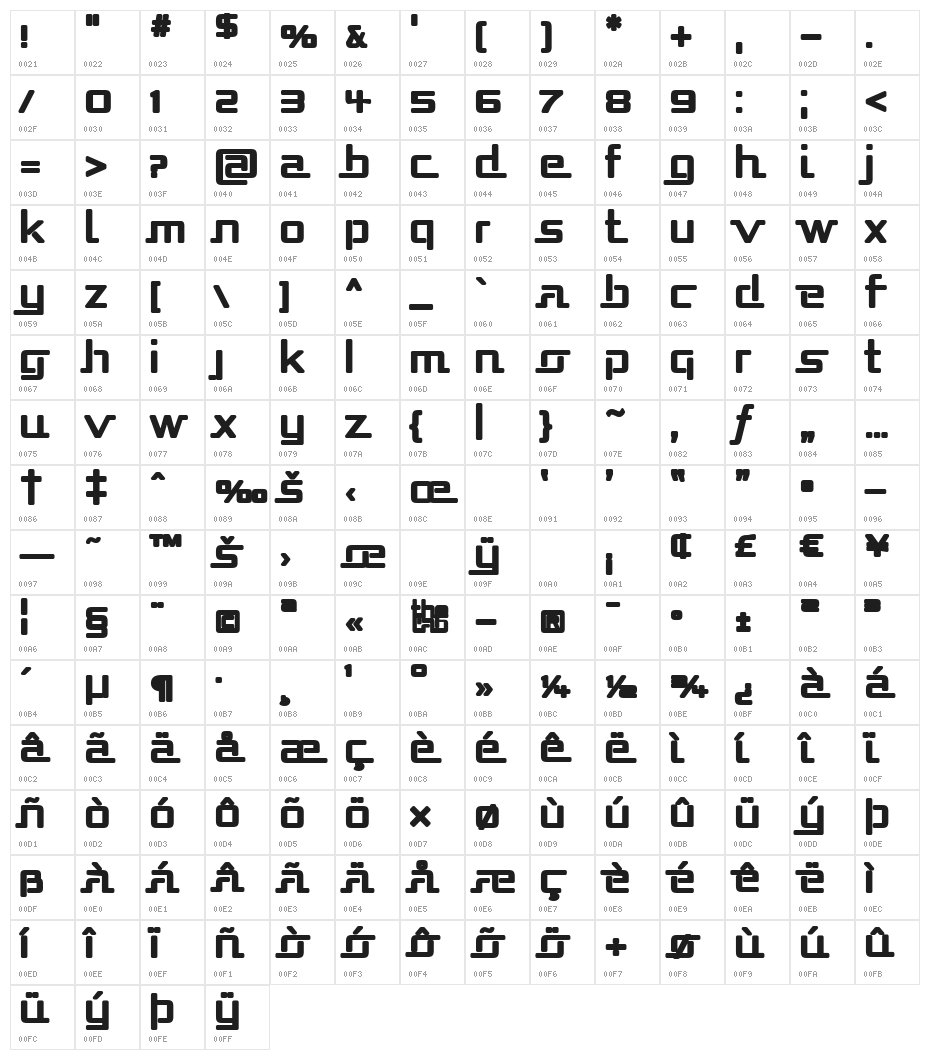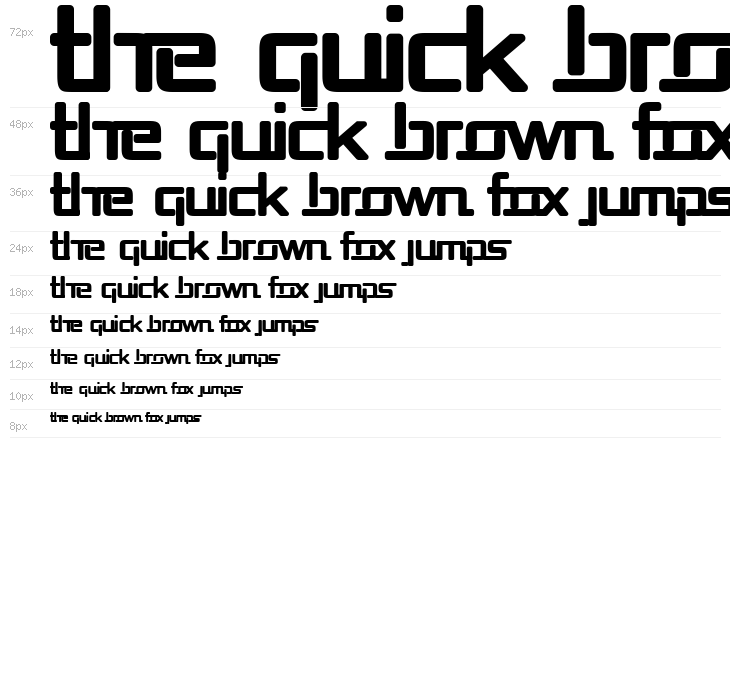
Republika - Ultra Font
Republika - Ultra Description
This font features a bold, geometric design with a strong emphasis on rounded edges and consistent line thickness. The characters are constructed with a modern, futuristic aesthetic, characterized by their uniform width and smooth curves. The uppercase and lowercase letters maintain a cohesive style, while the numerals and special characters complement the overall look. Its bold presence makes it ideal for attention-grabbing designs, while the rounded forms add a touch of approachability.